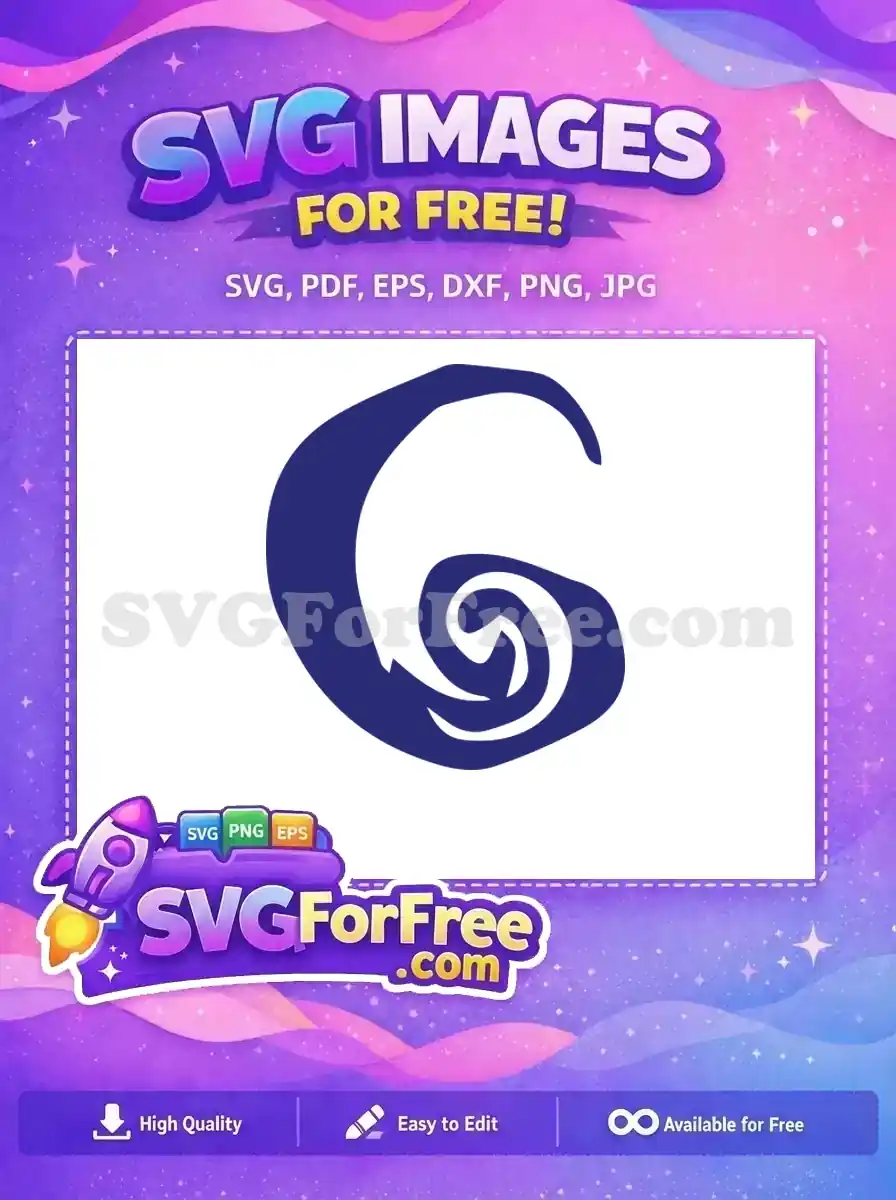
Free Ocean Font Free Letter Separate Moana Free SVG – Instant Download
Dark blue letter G incorporating a spiral tail design, available as a free vector.
Free Ocean Font Free Letter Separate Moana Free SVG